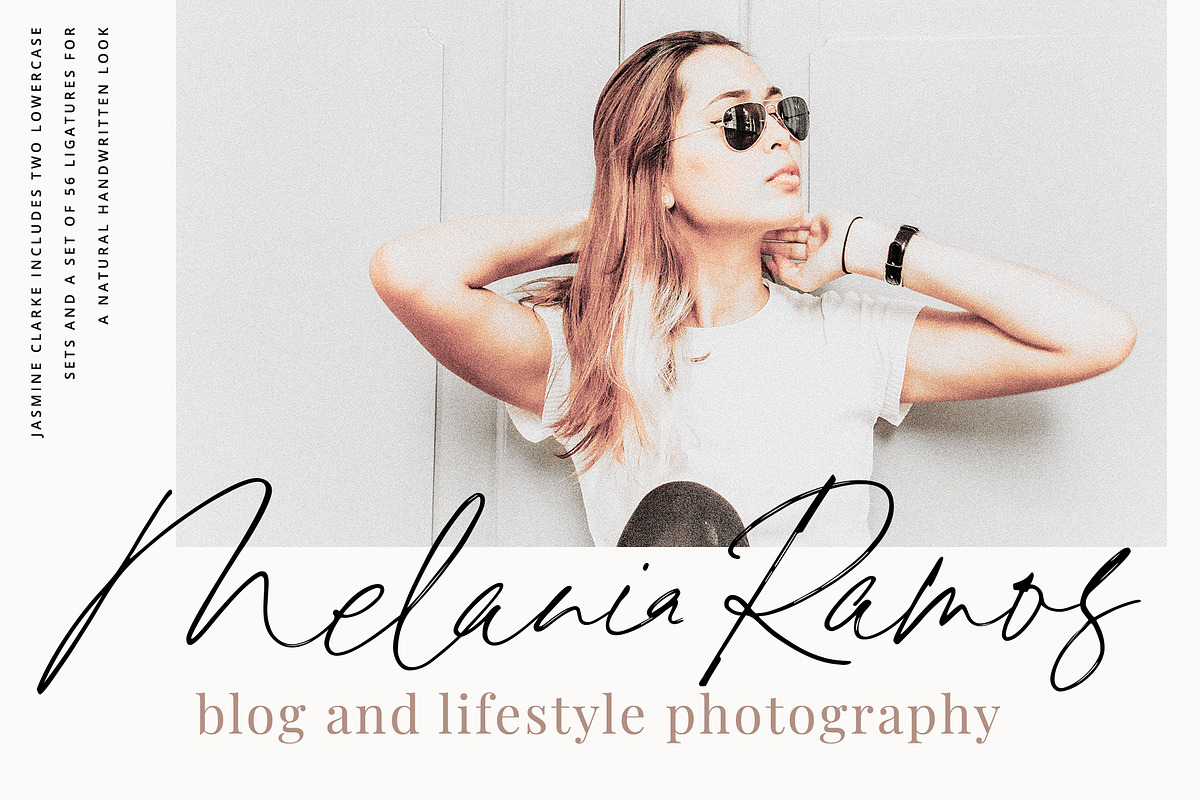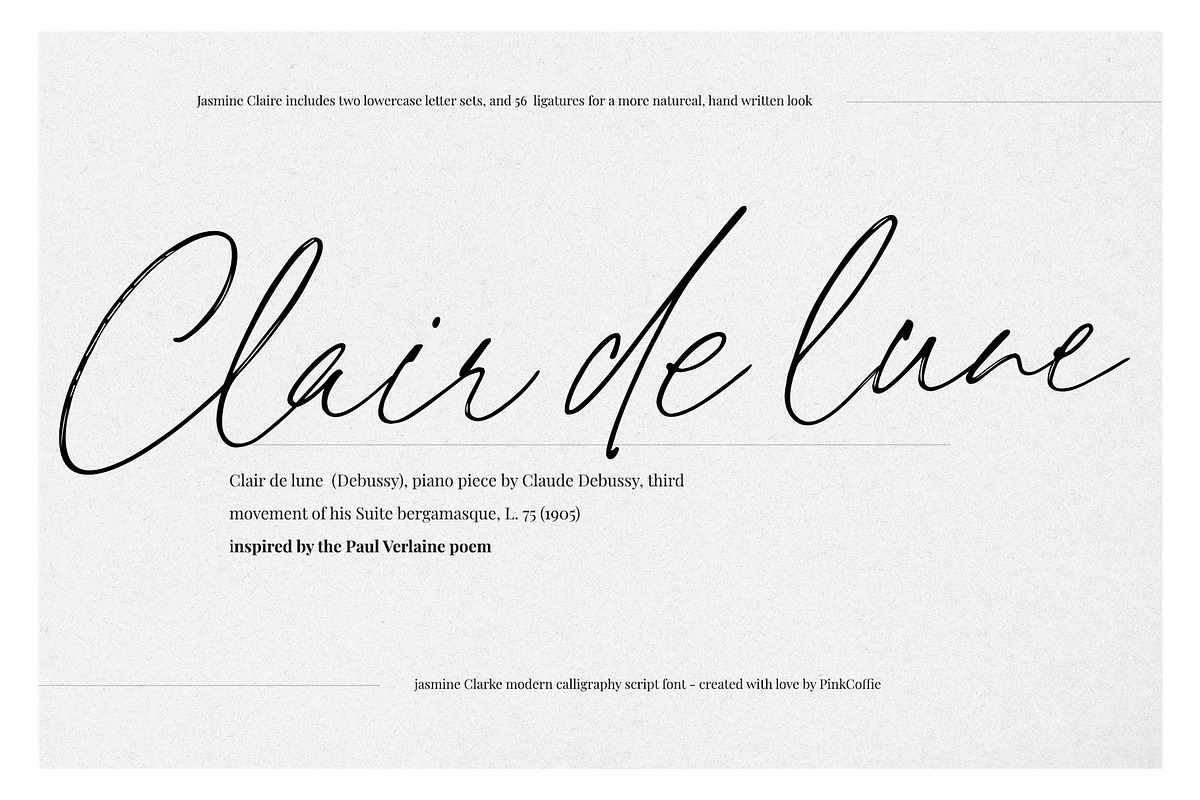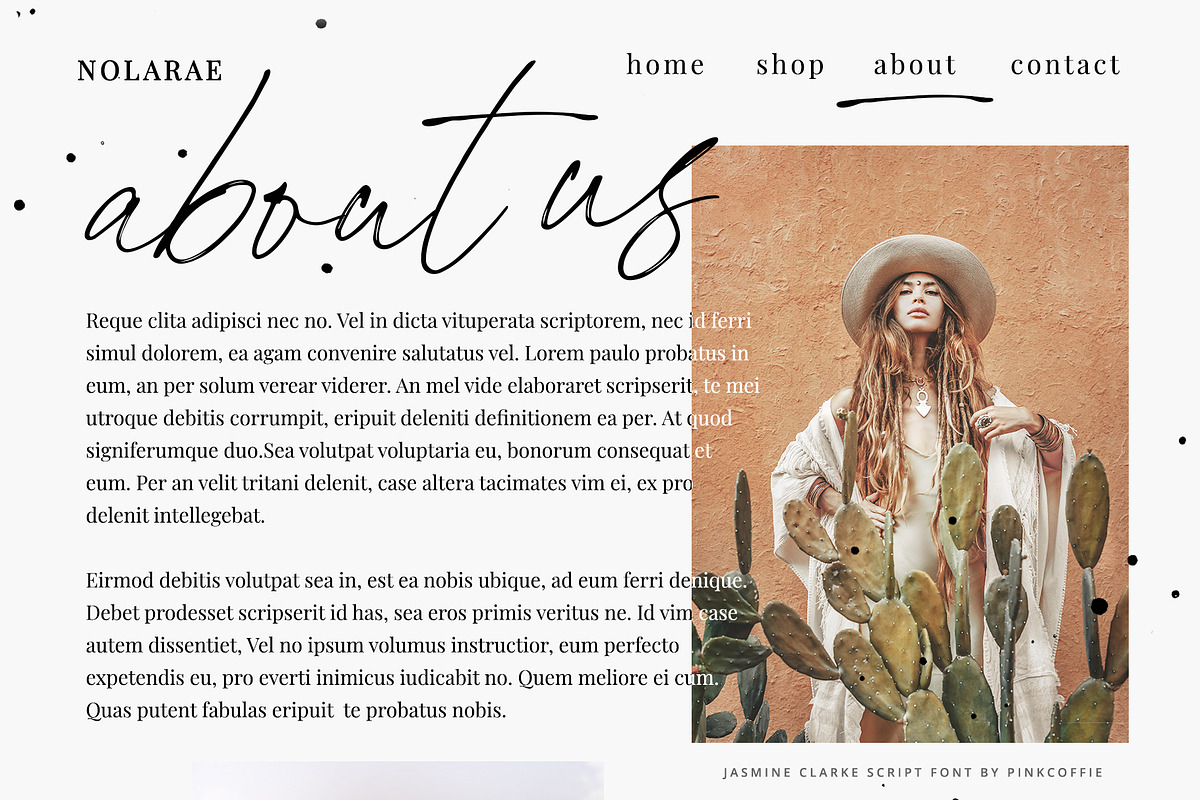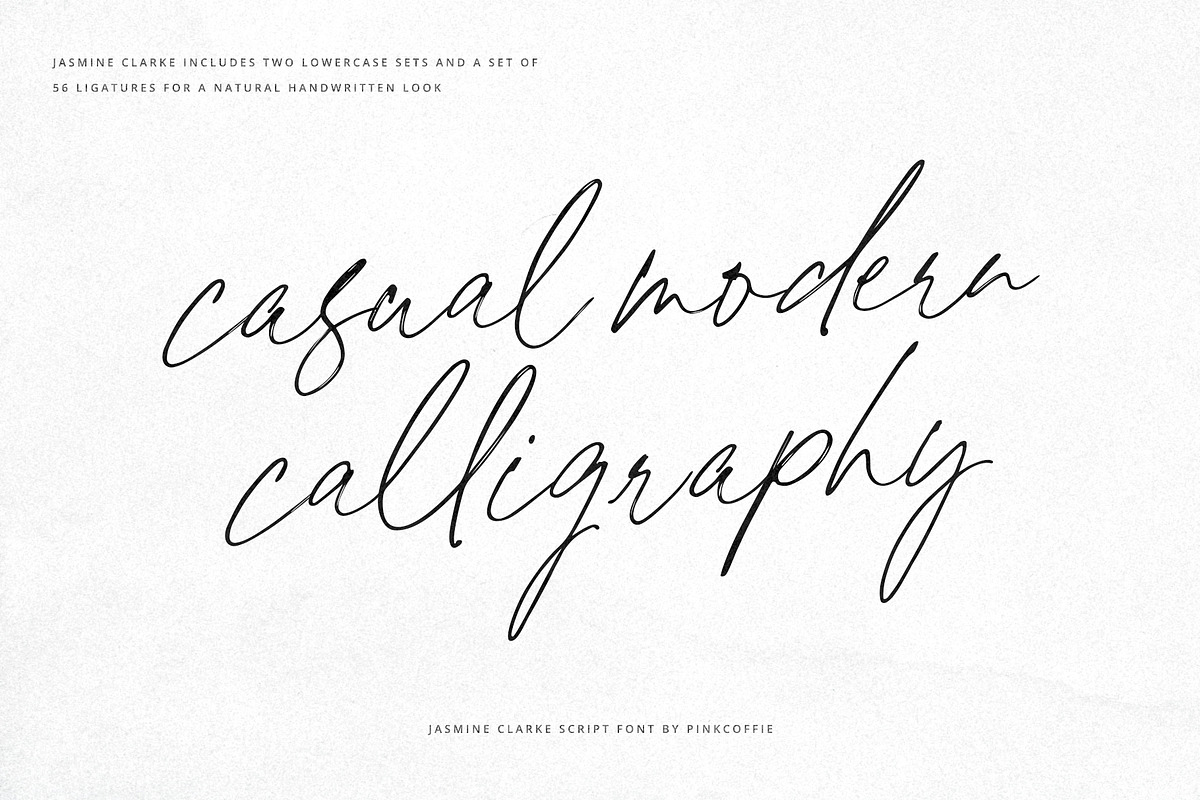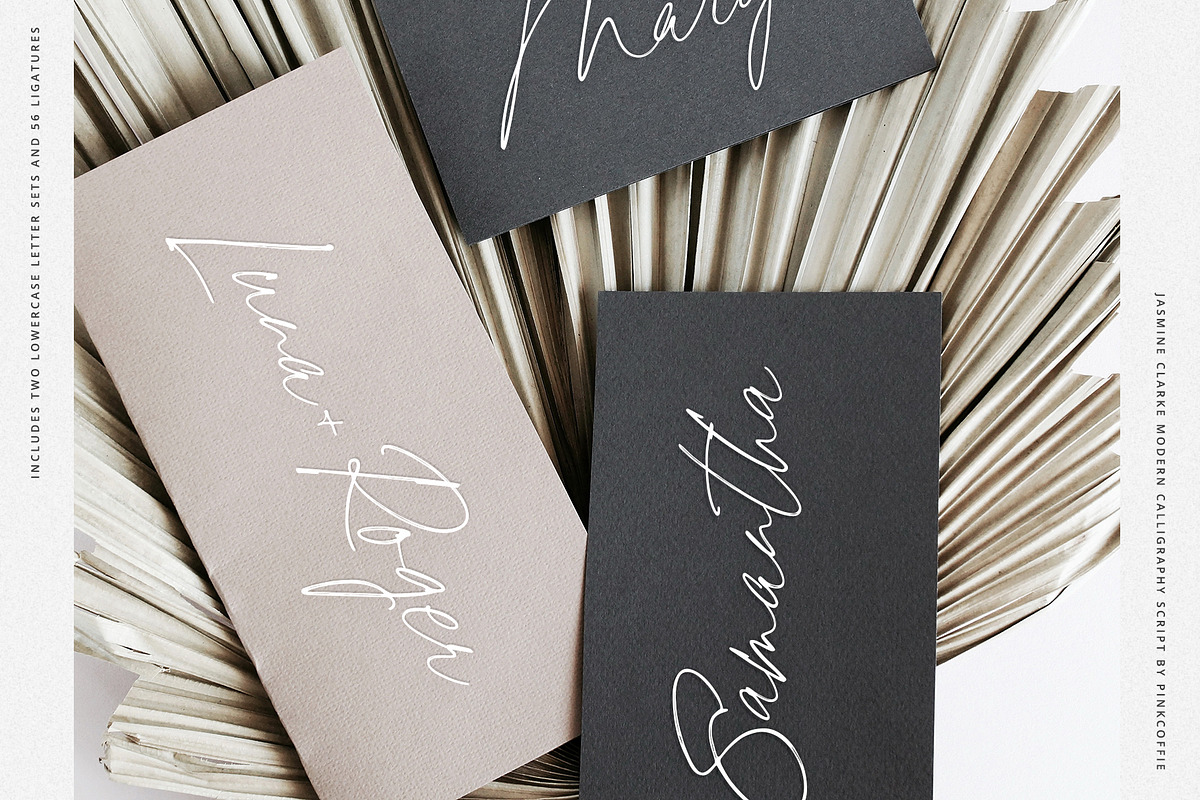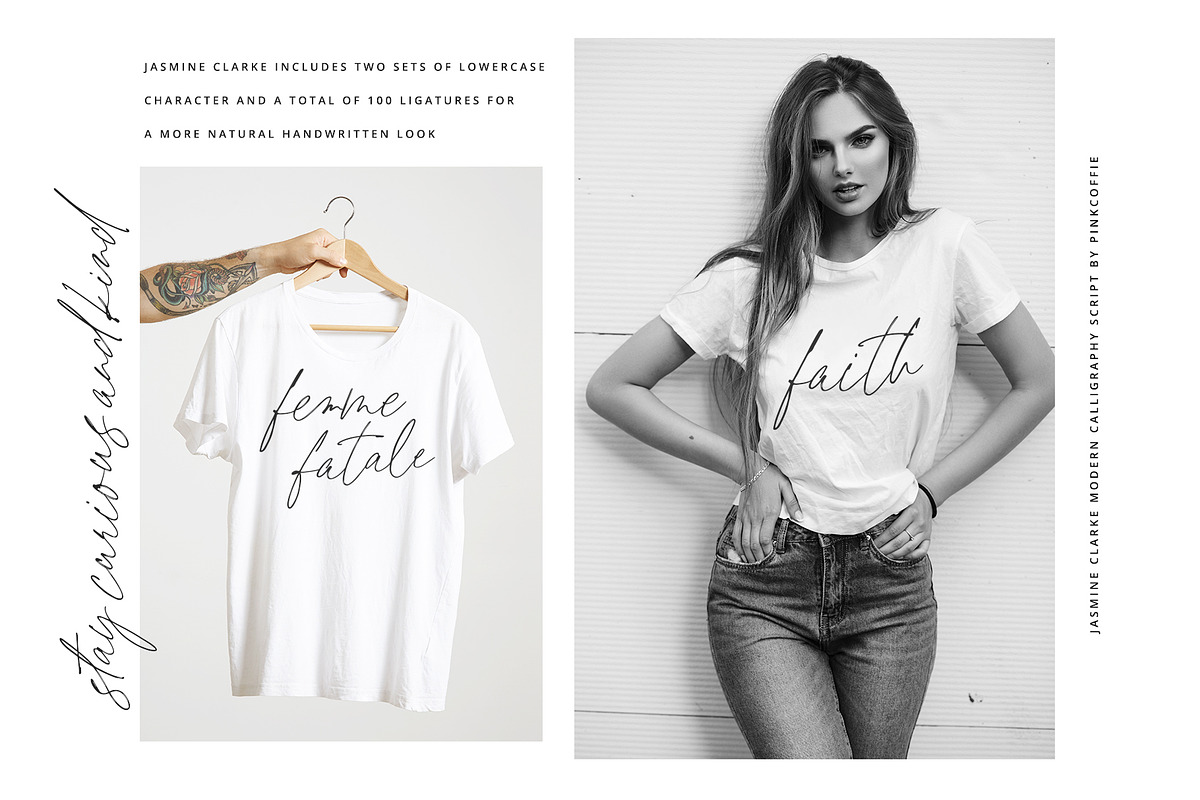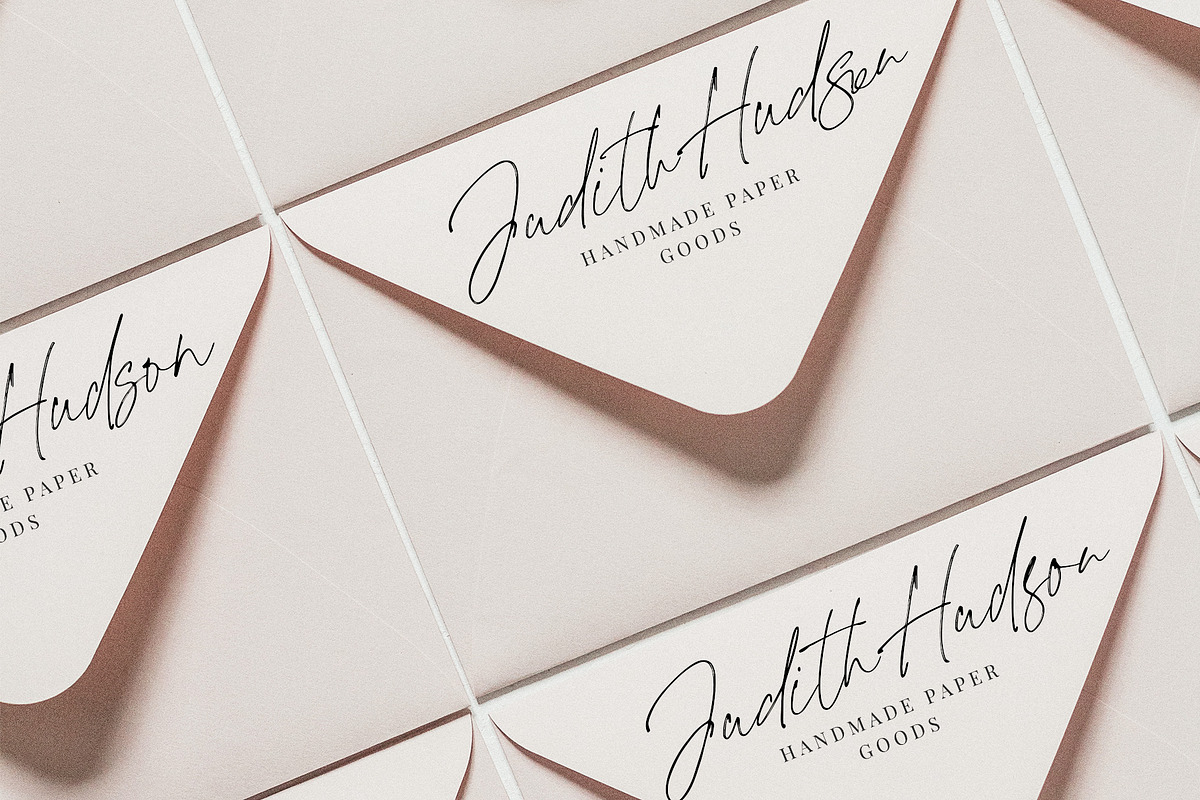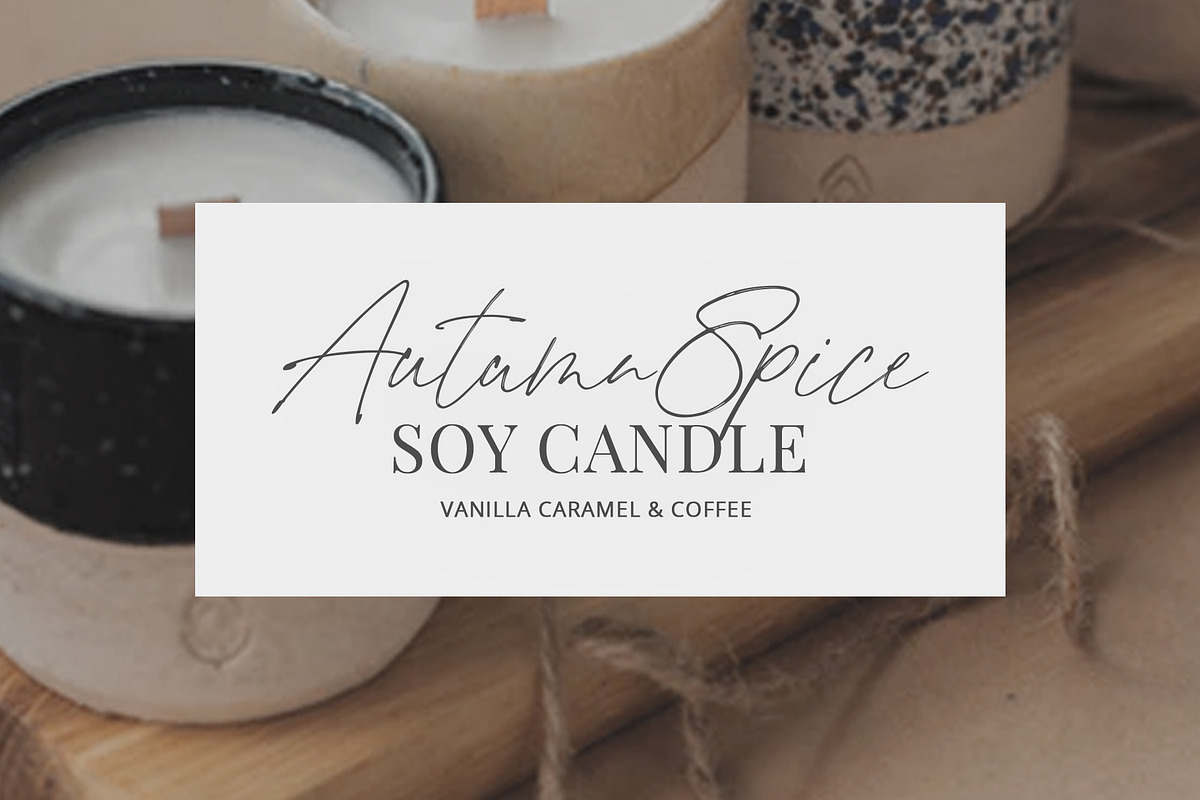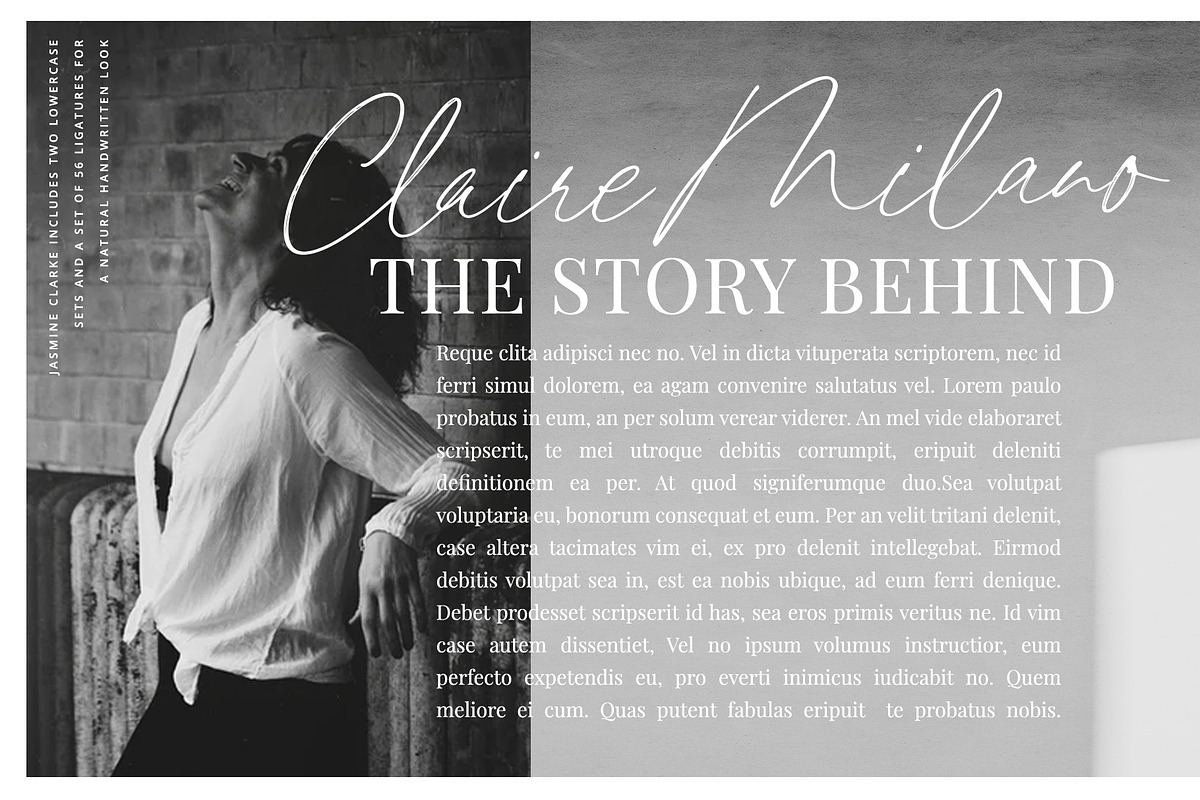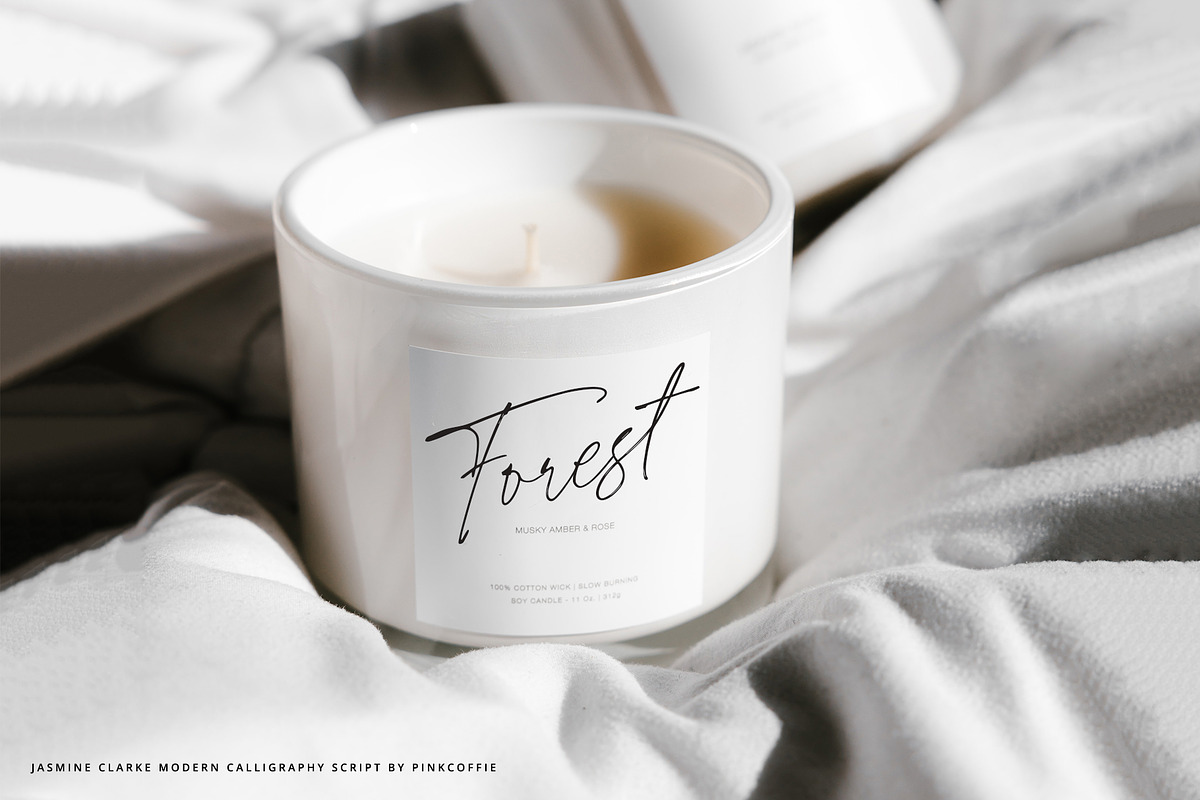
Jasmine Clarke | Casual Chic Font
Say hello to Jasmine Clarke, a casual, chic modern calligraphy script font inspired by cosmetic packaging and feminine branding.
Jasmine Clarke is versatile enough for both web and print and can be used in a variety of projects such as stationery, packaging, apparel, wedding stationery, prints, quotes, social media graphics, planners, greeting cards, logos, branding, and much much more.
The script includes a set of uppercase characters, numerals, symbols, two lowercase letter sets, and a total of 56 ligatures for more variety & a more natural hand-lettered look.